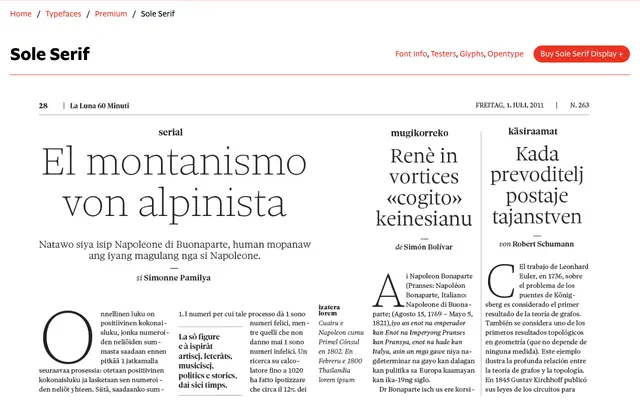
Sole Serif
CAST · Luciano Perondi · 2010
Sole Serif specimen from CAST
A newspaper serif by Luciano Perondi drawing on Griffo's Renaissance romans, built across a comprehensive system of optical sizes from Small Caption to BigDisplay.
Designed for the demands of newspaper printing, Sole Serif bridges daily press and book typography through its big x-height and wide italic on one side and its inclined axis, calligraphic terminations and Renaissance proportions on the other. The family spans eight optical size grades and a Hairline cut, covering well over a hundred styles with weights from Light to Black. In 2018 it was chosen by Guardian Media Group to revamp The Observer, the oldest Sunday paper in the world.
Rooted in Francesco Griffo's Renaissance romans, Sole Serif combines inclined axis, calligraphic terminations and Renaissance proportions with a high x-height and wide italic optimised for newspaper printing — placing it firmly in the humanist serif tradition.